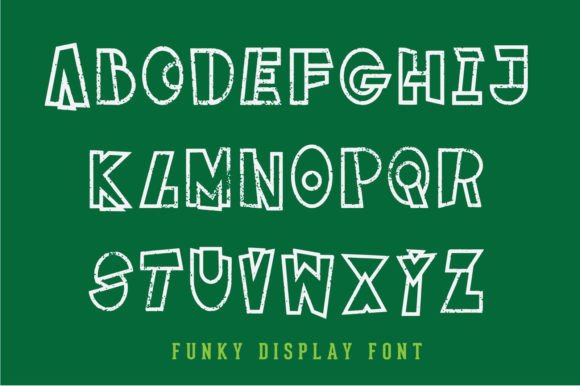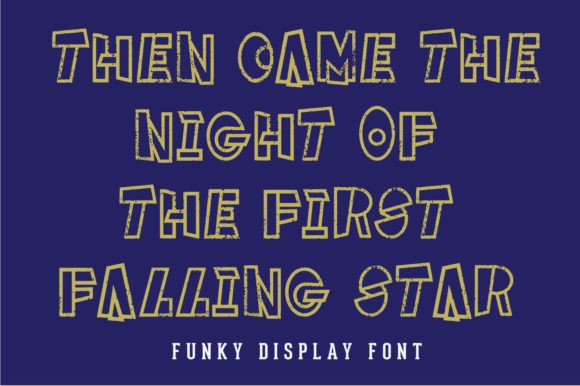
Introduction to Odd Blocks Font
This funky display font is perfect for your off-the-wall design needs.
It adapts wonderfully in contexts such as designing labels for perfumes, cosmetics, magazine covers, posters, manifests, flyers, social posts, and fashion Use it in your creations so you can notice how fastly it becomes one of your favorite fonts.
Key Features of Odd Blocks Font
Why Choose Odd Blocks Font?
Odd Blocks Font offers exceptional quality and versatility, making it a valuable addition to your design toolkit. Whether you’re creating for personal projects or commercial use, Odd Blocks Font delivers professional results.